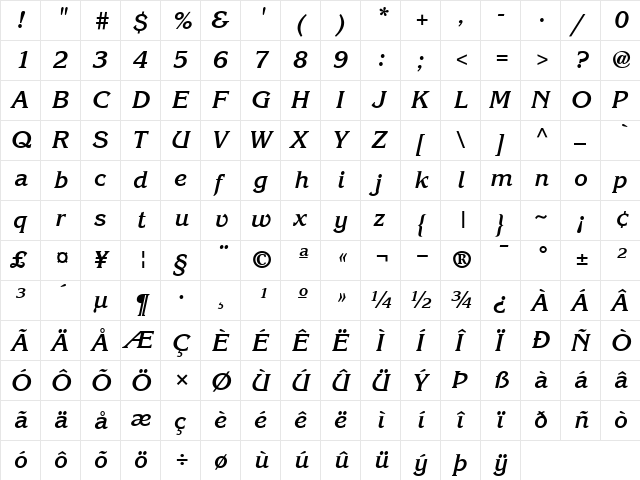
ITCKorinnaKursiv BoldItalic
Design Context for ITCKorinnaKursiv Typeface
ITCKorinnaKursiv is a composed and adaptable typeface that performs quietly and consistently across a wide range of design contexts. Its italic angle brings a sense of urgency and motion to the letterforms. Its bold stroke weight gives it real presence on the page.
Pro Tip: Use ITCKorinnaKursiv for emphasis, pull quotes, and subheadings where its slanted energy can add rhythm to the layout.